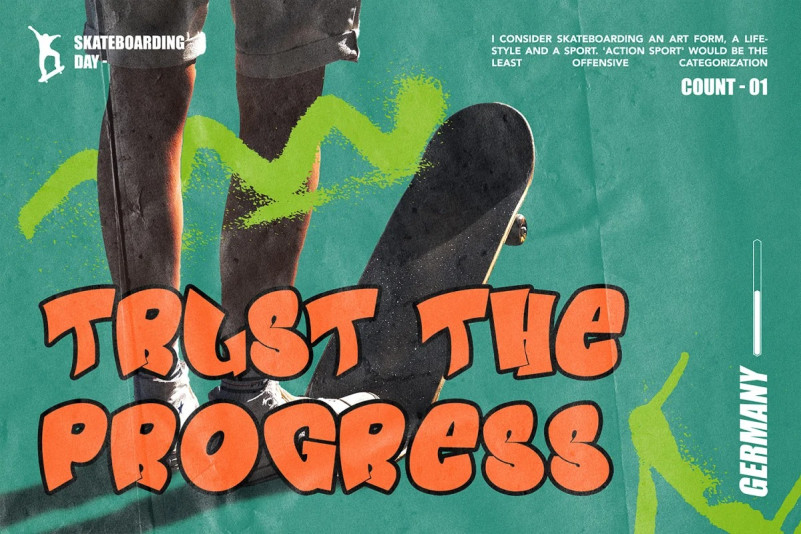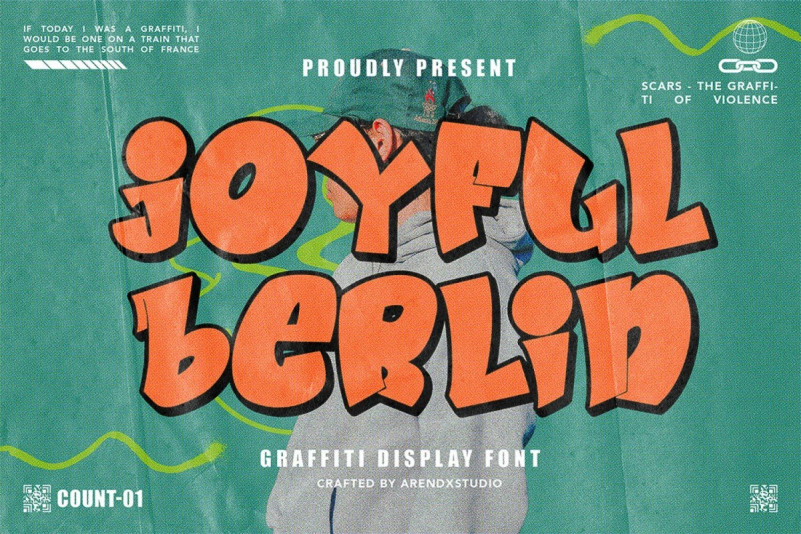
Joyful Berlin Font
Joyful Berlin – Comic Display Font is a font with distinctive handwritten characters perfect for branding projects, logos, wedding designs, media posts, advertisements, product packaging, product designs, labels, photography, watermarks, invitations, stationery, and any project who need handwritten dishes.